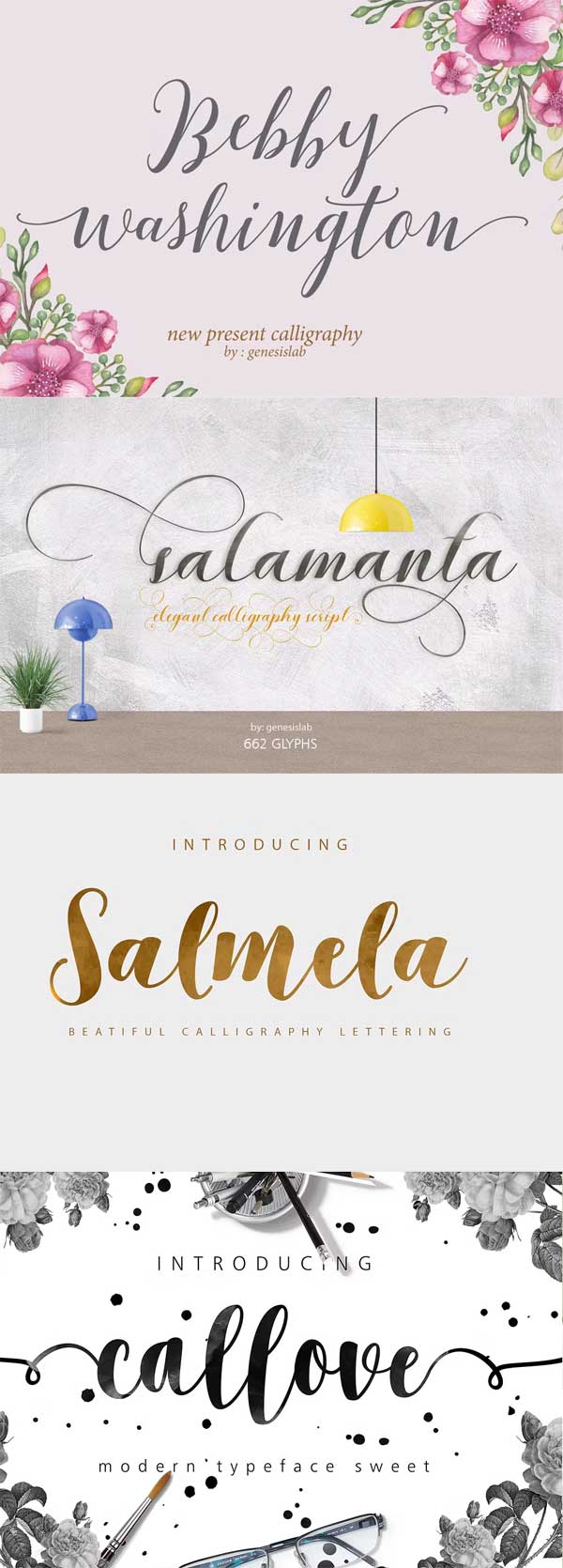
Creativemarket – Font Bundle Calligraphy
Font Bundle Calligraphy
You would be hard-pressed to find a more beautiful collection of hand-made script fonts. This set has 26 modern calligraphy fonts that are perfect for creating wedding invitations, signatures, letterheads, logos, T-shirts, and everything in between. With many OpenType features available, you can mix and match styles to create the perfect work.
Font Bundle Caligraphy